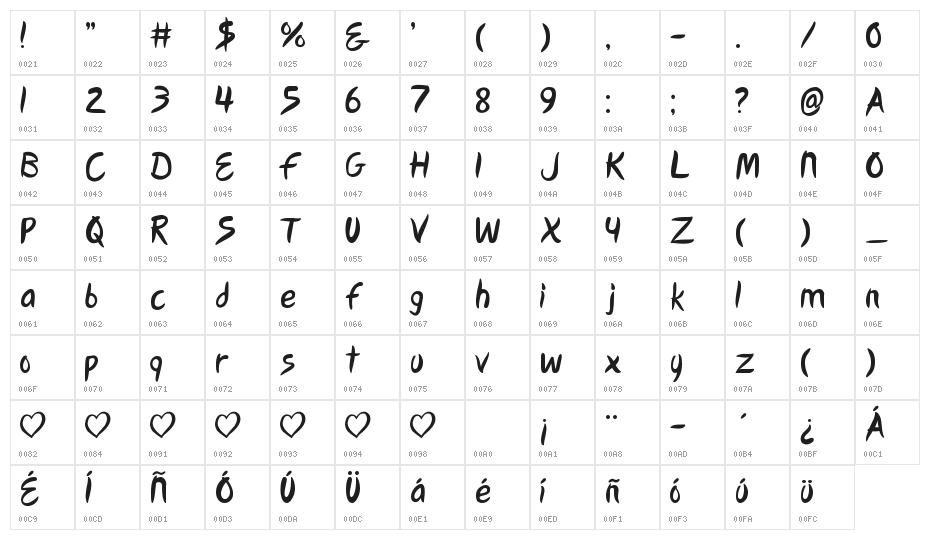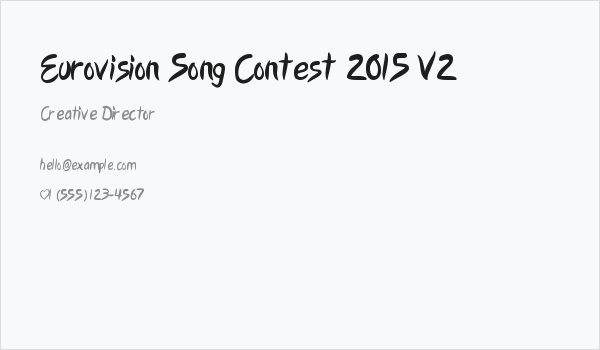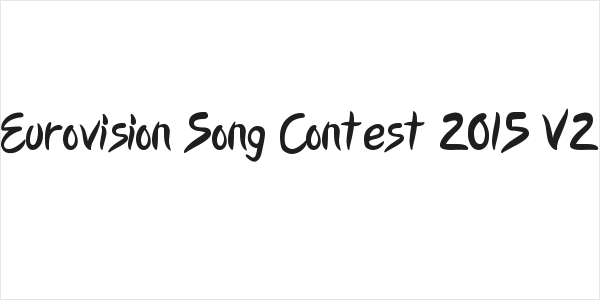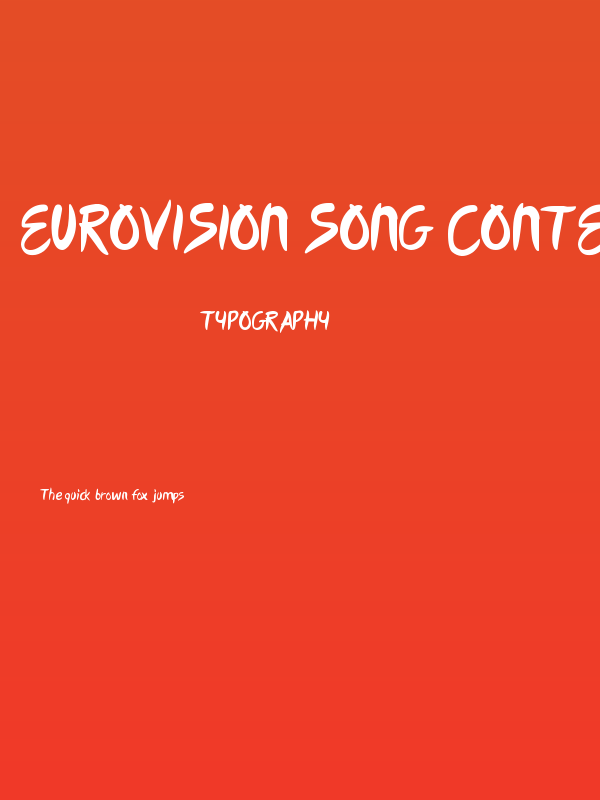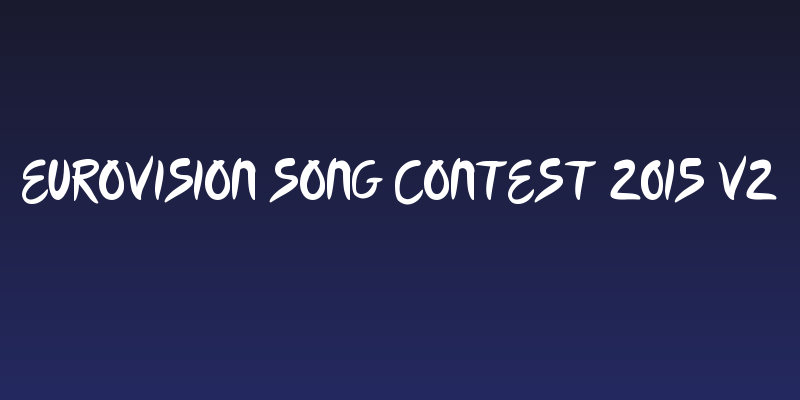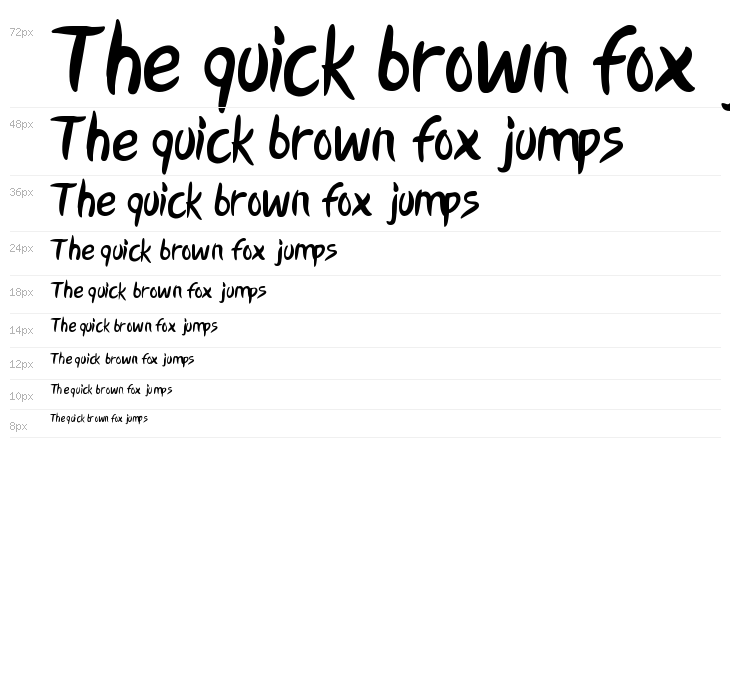
Eurovision Song Contest 2015 V2 Font
Eurovision Song Contest 2015 V2 Description
This font features a playful and energetic handwritten style, characterized by its bold and dynamic strokes. The letters are slightly slanted, giving a sense of movement and spontaneity. The uppercase and lowercase letters maintain a consistent style, with rounded edges and a casual flair. Numbers and special characters are crafted with the same lively touch, making them blend seamlessly with the alphabet. This font exudes a sense of fun and creativity, ideal for projects that require a personal and informal touch.
| Overall Style | Playful, Energetic, Casual |
| Use Case | Headlines, Logos, Informal Invitations |
| Proposed Projects | Perfect for greeting cards, children's books, playful branding, and creative social media graphics. |